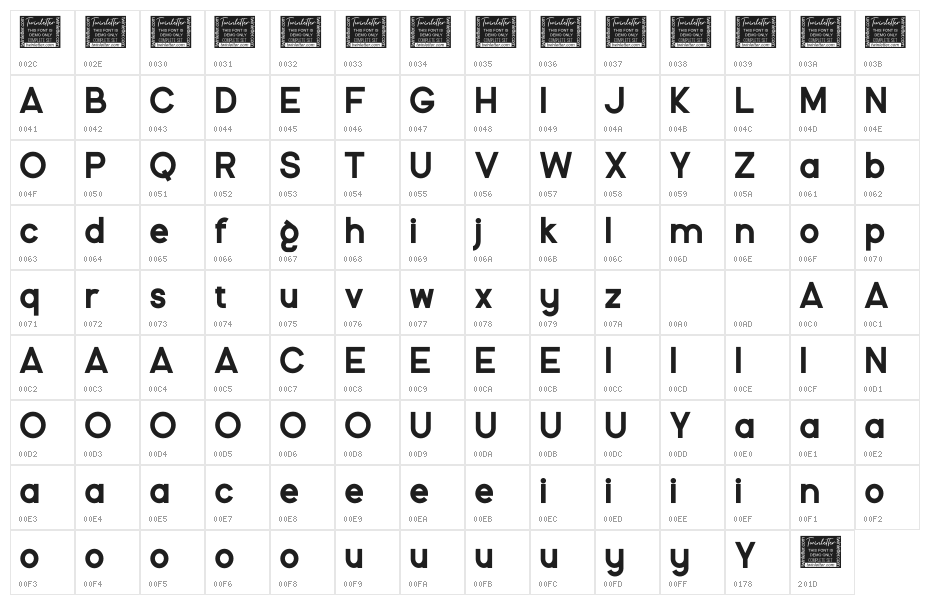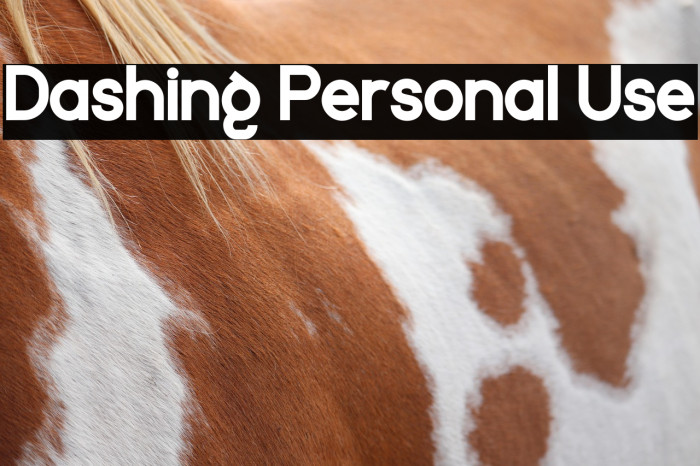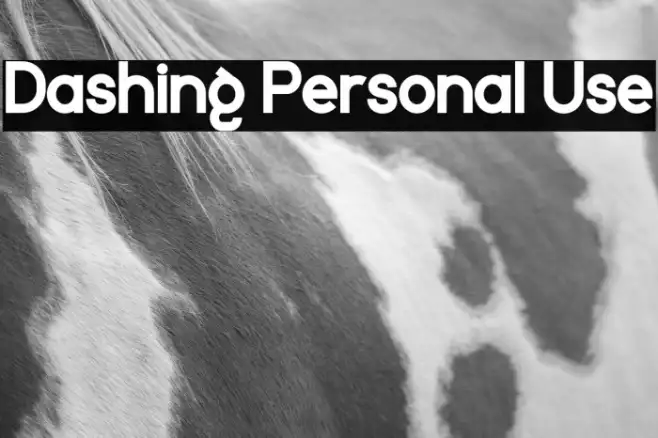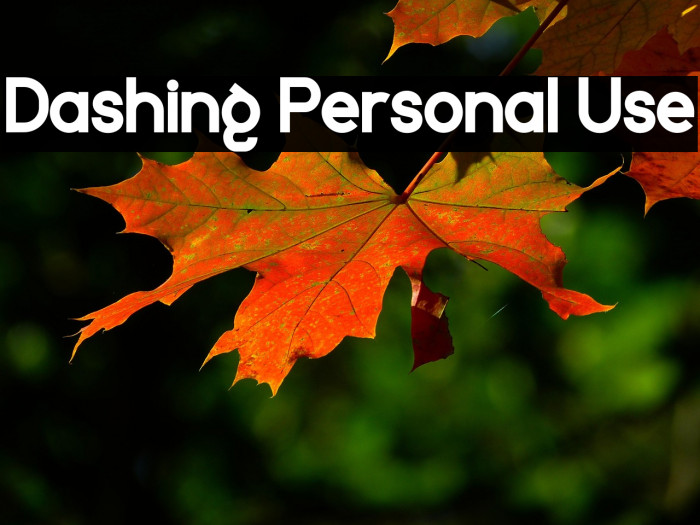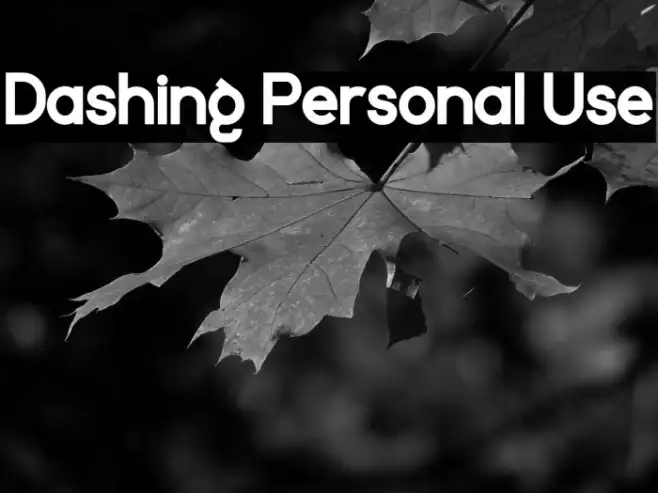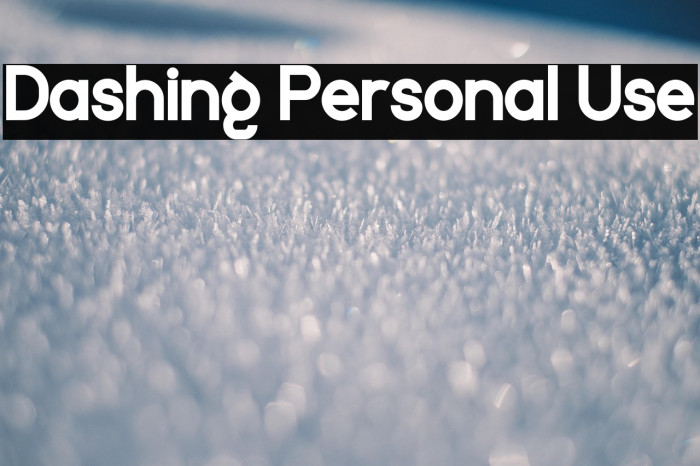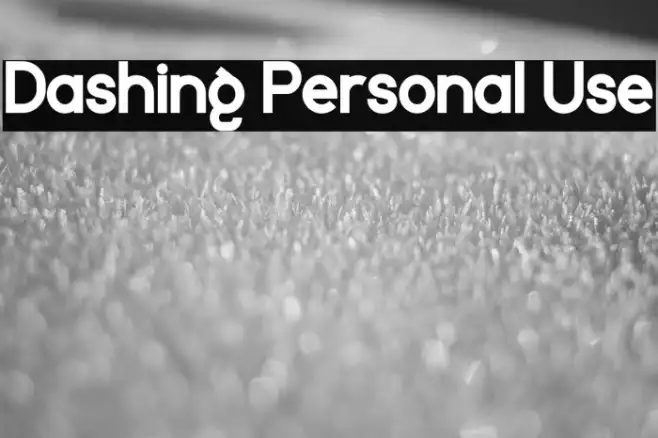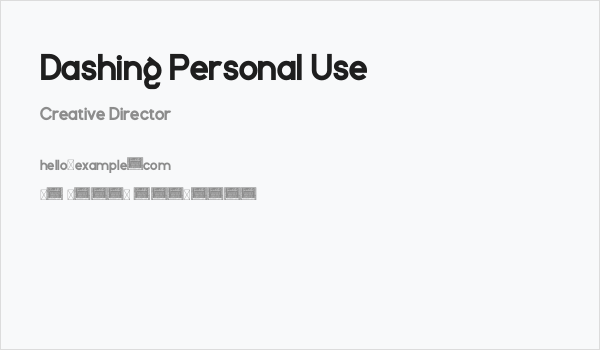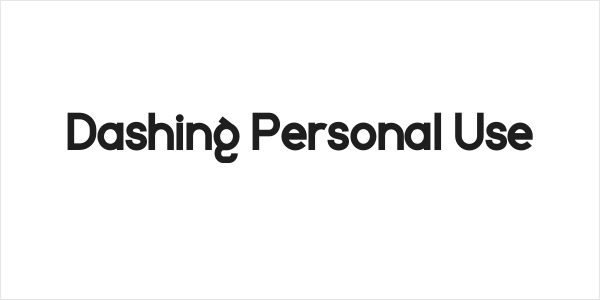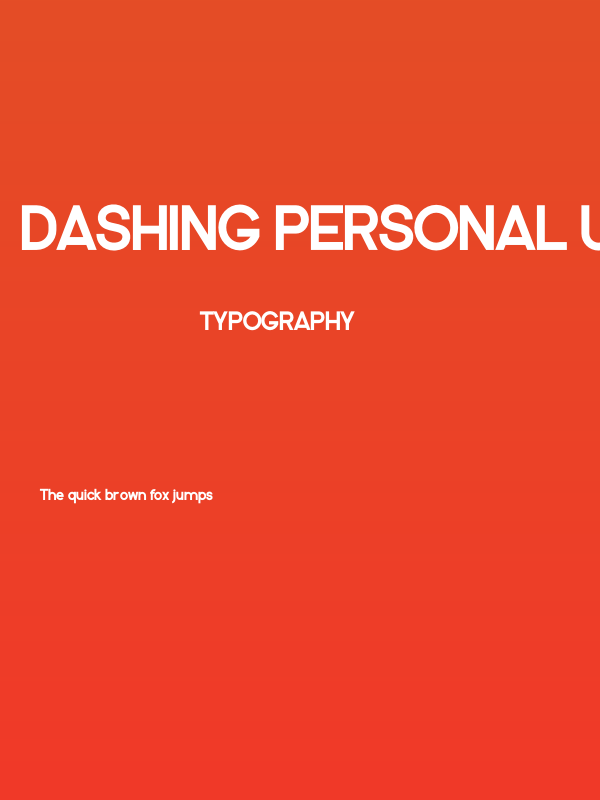
Dashing Personal Use Font
Dashing Personal Use Description
This font features a bold and modern sans-serif style, characterized by clean lines and a strong geometric structure. The uppercase and lowercase letters maintain a consistent weight, providing a uniform appearance across all characters. The design is straightforward, with minimal decorative elements, making it highly legible and versatile for various applications. The numerals and special characters are crafted to match the overall aesthetic, ensuring a cohesive look. The font's simplicity and clarity make it suitable for both digital and print media, offering a contemporary feel that can enhance modern design projects.